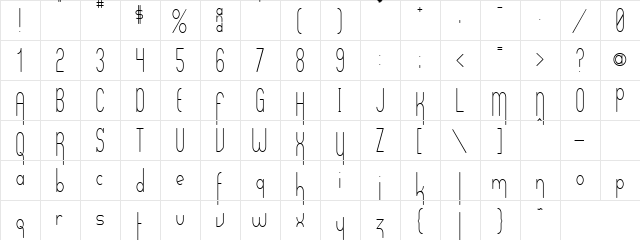
Conventional Dude Regular
Design Context for Conventional Dude Typeface
Conventional Dude takes a measured approach to typography — its balanced proportions and neutral character make it a reliable workhorse for both digital and print work.
Pro Tip: Use Conventional Dude in both headline and body roles to test its range before committing to a single application.